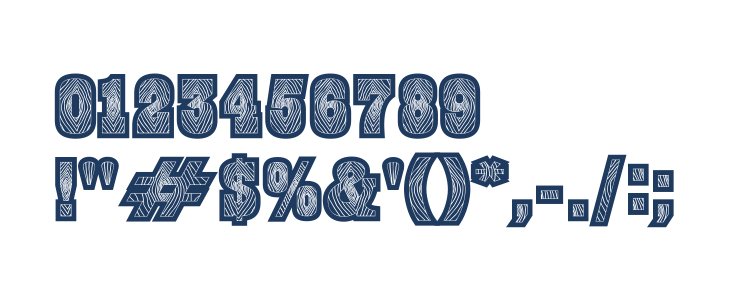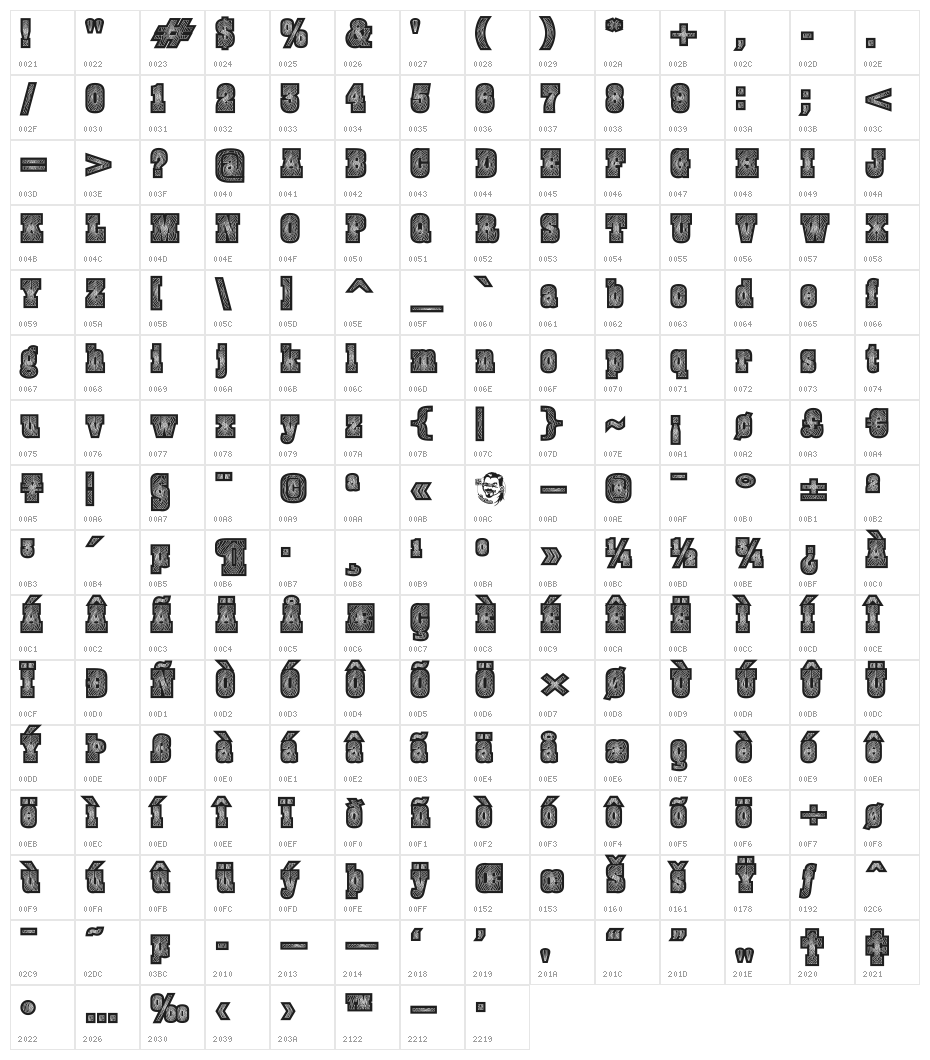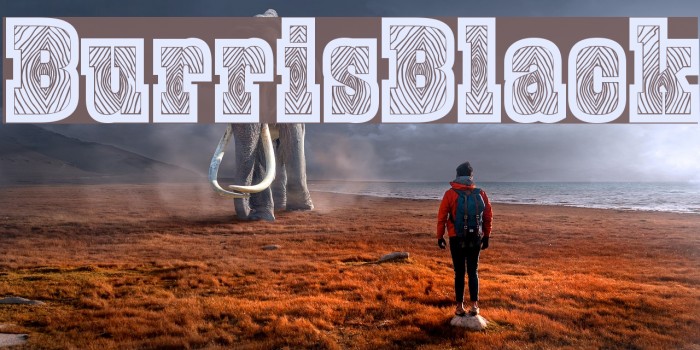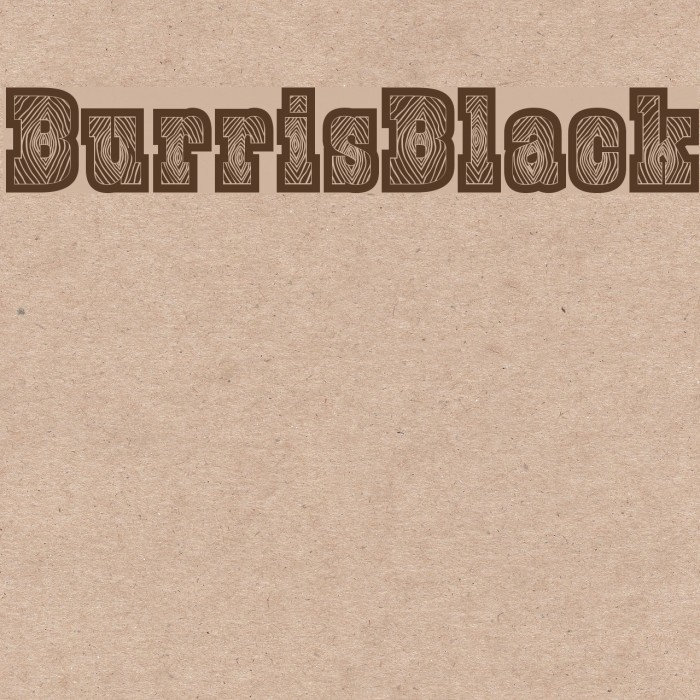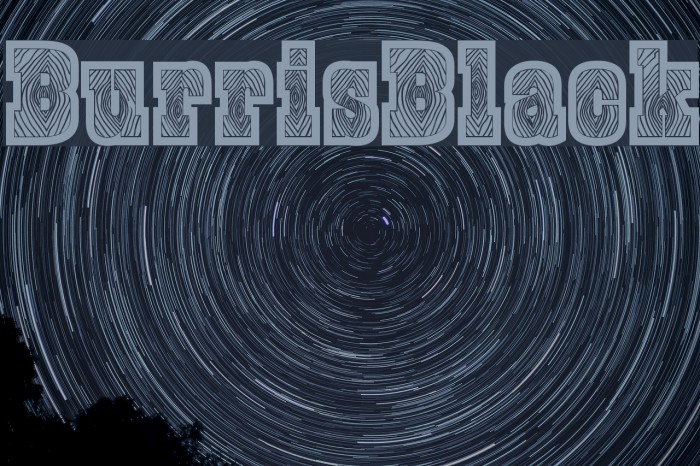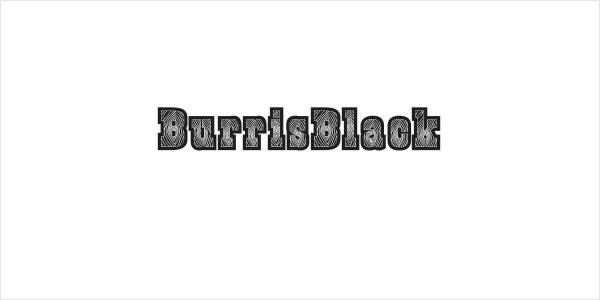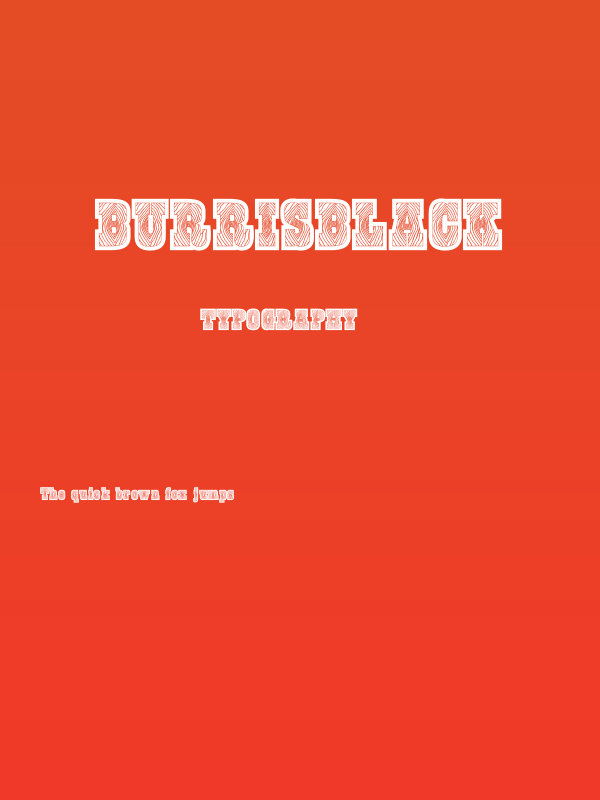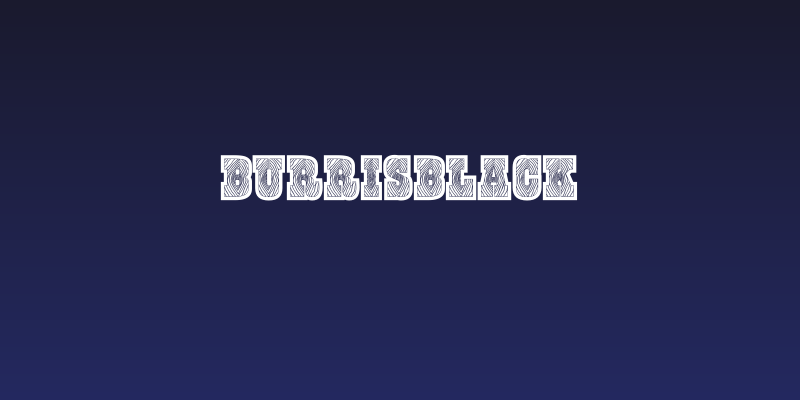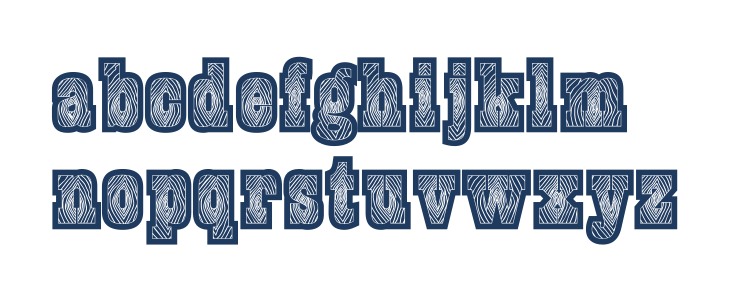
BurrisBlack Font
BurrisBlack Description
This font is a bold and decorative typeface characterized by its intricate line patterns within each letterform. The design features a unique combination of thick, blocky shapes with detailed, diagonal hatching that adds depth and texture. The uppercase and lowercase letters maintain a consistent style, with the uppercase being slightly more pronounced. Numbers and special characters are equally ornate, making the font ideal for eye-catching designs. The overall appearance is striking and artistic, suitable for projects that require a strong visual impact.
| Proposed Projects | Ideal for posters, logos, branding, and any design requiring a bold, artistic touch. |